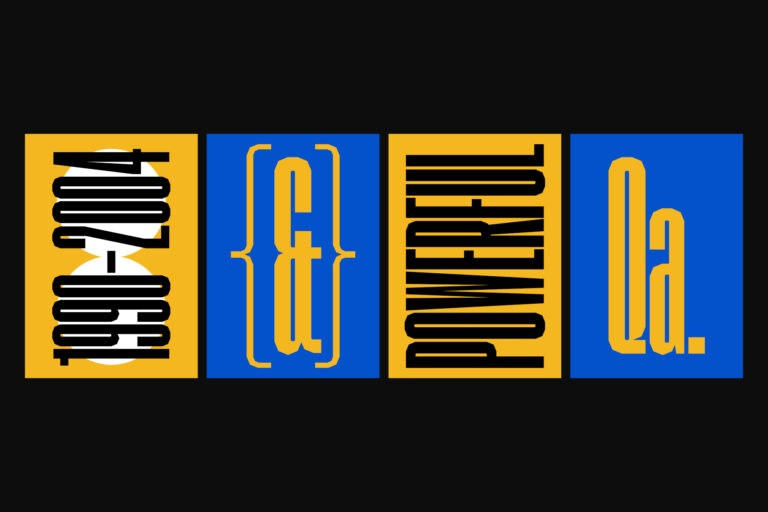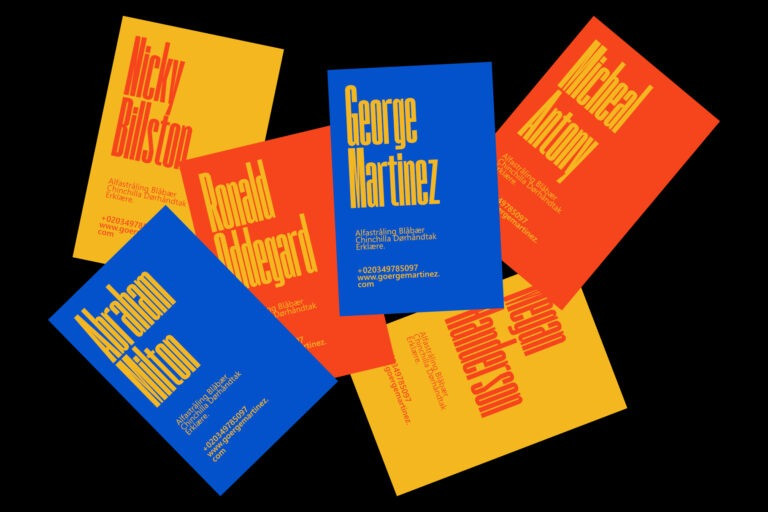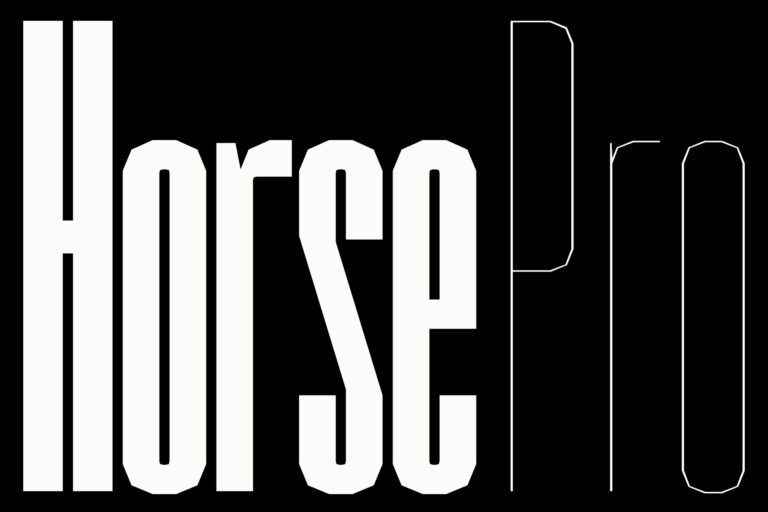
Horse Pro Font
Horse Pro Sans Serif Font a unique sans serif font contains several weights to give the user an interesting experience when using it. This unique sans serif font family is very good for branding, logo projects, headings, advertising, packaging, web design, print goods and other creative projects.